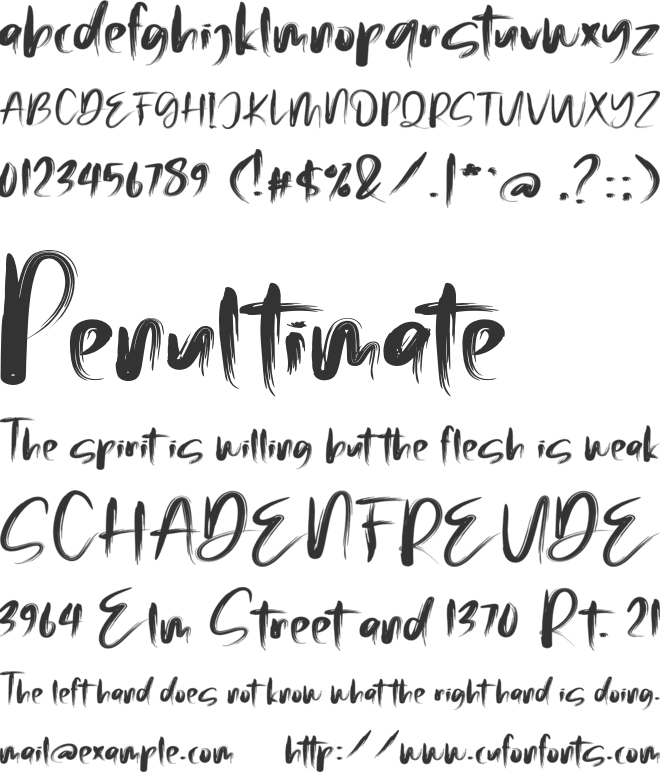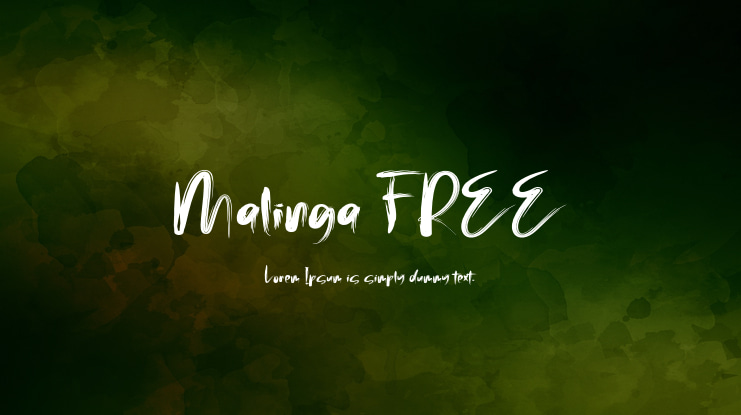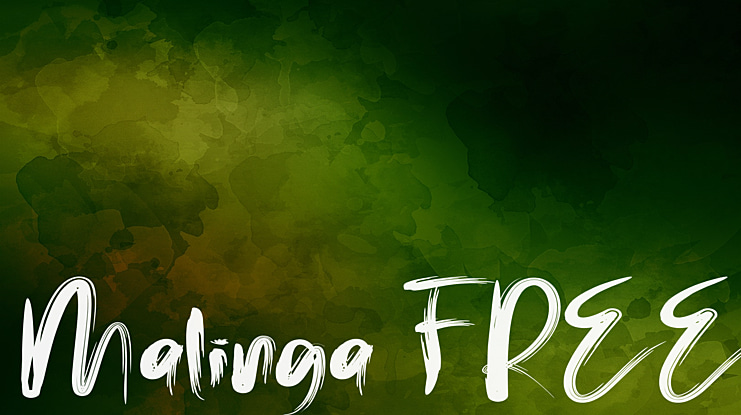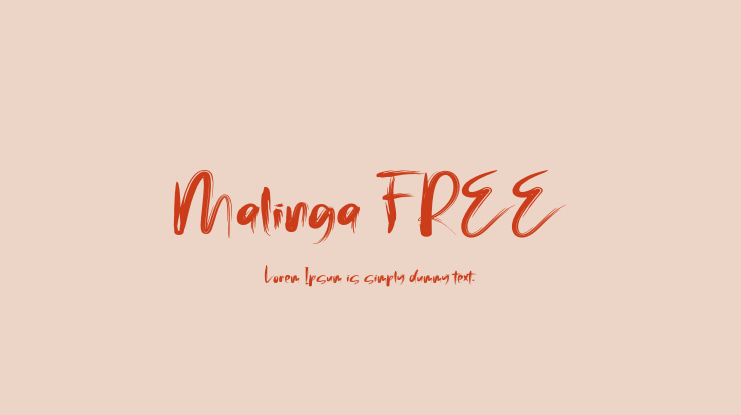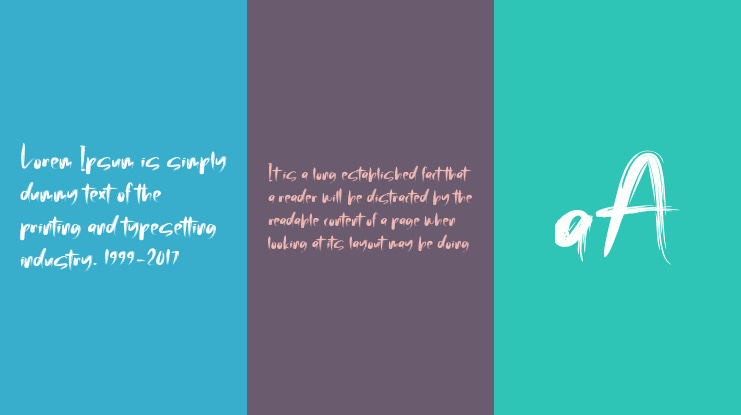
Malinga FREE Font
"Malinga" is a font display is made by hand, inspired by classic posters.
comes with uppercase, lowercase, numerals, punctuations and so many variations on each character include OpenType alternates, common ligatures and also additional swash to let you customize your designs. Perfect to use for Logotype, Letterhead, Poster, Apparel Design, Label and etc.